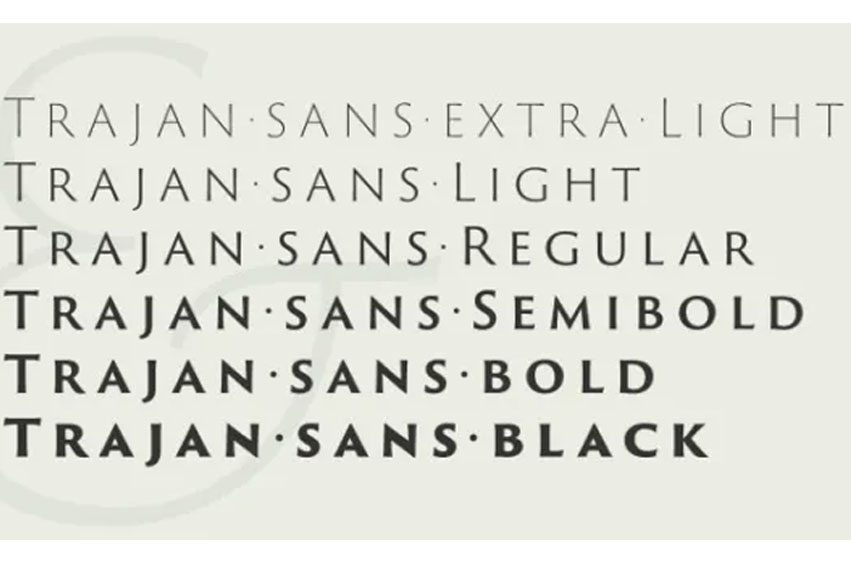
Trajan Sans Pro Font
Trajan Sans Pro Font Family is a sans-serif typeface that complements Carol Twombly’s famous Trajan typeface, originally published in 1989. It is a new interpretation by designer Robert Slimbach, a complement to his expansion of the Trajan Pro family.
Like Trajan Pro, Trajan Sans is an all-caps typeface, inspired by the famous inscription at the base of Trajan’s Column in Rome. Slimbach set out to create “a decidedly modern sans-serif poster typeface family that retains the elegance and versatility of the original Trajan family.